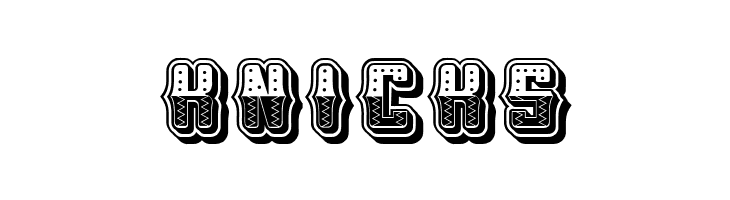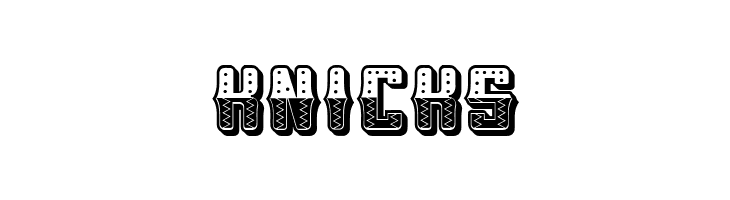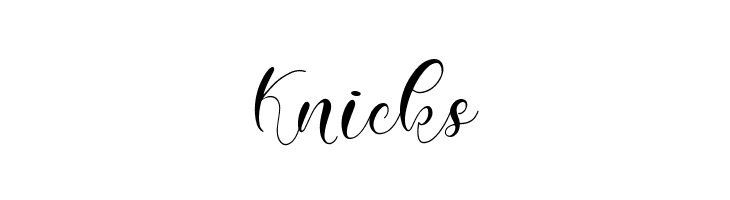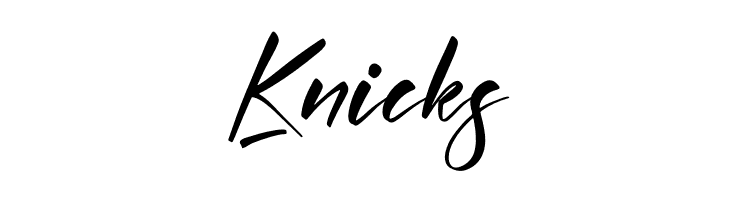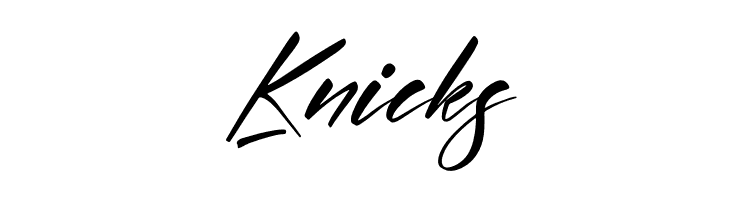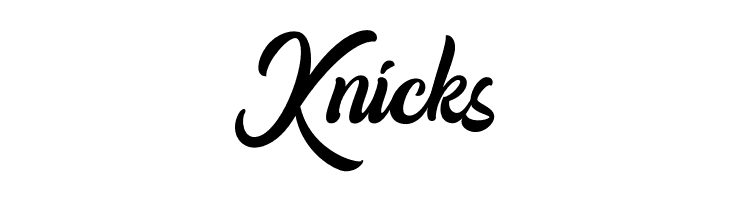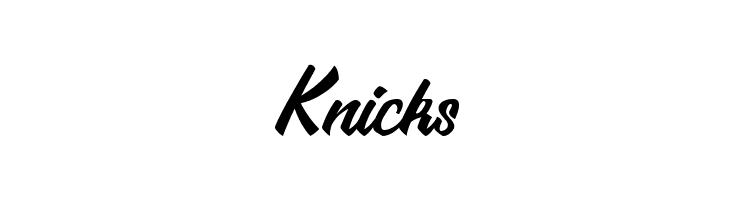
A bold, modern italic font with a dynamic and energetic style.
A bold, segmented font with a modern, industrial style.
A bold, angular font with a modern, geometric style.
A bold, angular font with a futuristic and geometric style.
A hand-drawn, rustic font with tall, narrow characters and an artistic, organic texture.
A playful and elegant font with cursive-like strokes and dynamic letterforms.
A bold, modern sans-serif font with clean lines and geometric structure.
A decorative, distressed font with elaborate swirls and a grungy appearance.
An elegant script font with decorative swirls and flowing cursive style.
A bold, jagged font with a raw, energetic style and distressed appearance.
An elegant script font with flowing, interconnected letters and ornate flourishes.
An elegant, flowing cursive script with interconnected letters and a sophisticated style.
A dynamic brush-style font with fluid, hand-drawn strokes.
A bold, geometric font with a 3D effect and strong contrast, ideal for headlines.
A playful, handwritten-style font with bold, slightly slanted characters.
A dynamic italic font with smooth, flowing strokes and a modern style.
A dynamic and fluid script font with elegant, flowing letterforms.
A dynamic, fluid script font with elegant, flowing lines and an italicized style.
A bold, pixelated decorative font with a retro digital style.
A bold, expressive font with sharp edges and sweeping curves.
An elegant script font with flowing, cursive letterforms and ornate flourishes.
An elegant and flowing script font with ornate letterforms and sophisticated style.
A bold, cursive script font with elegant, flowing characters.
A dynamic and flowing script font with smooth, rounded edges and elegant curves.
A textured, brush-like script font with a casual, artistic flair.
An elegant, flowing script font with ornate, cursive strokes.
A flowing, elegant script font with smooth, connected strokes.
A flowing, elegant script font with a modern, handwritten feel.
A playful, cursive font with elegant loops and swirls.
A lively, expressive script font with flowing, connected letters and dynamic strokes.
A playful handwritten font with bold, consistent strokes and a casual style.
A playful, handwritten italic font with a casual and fluid style.